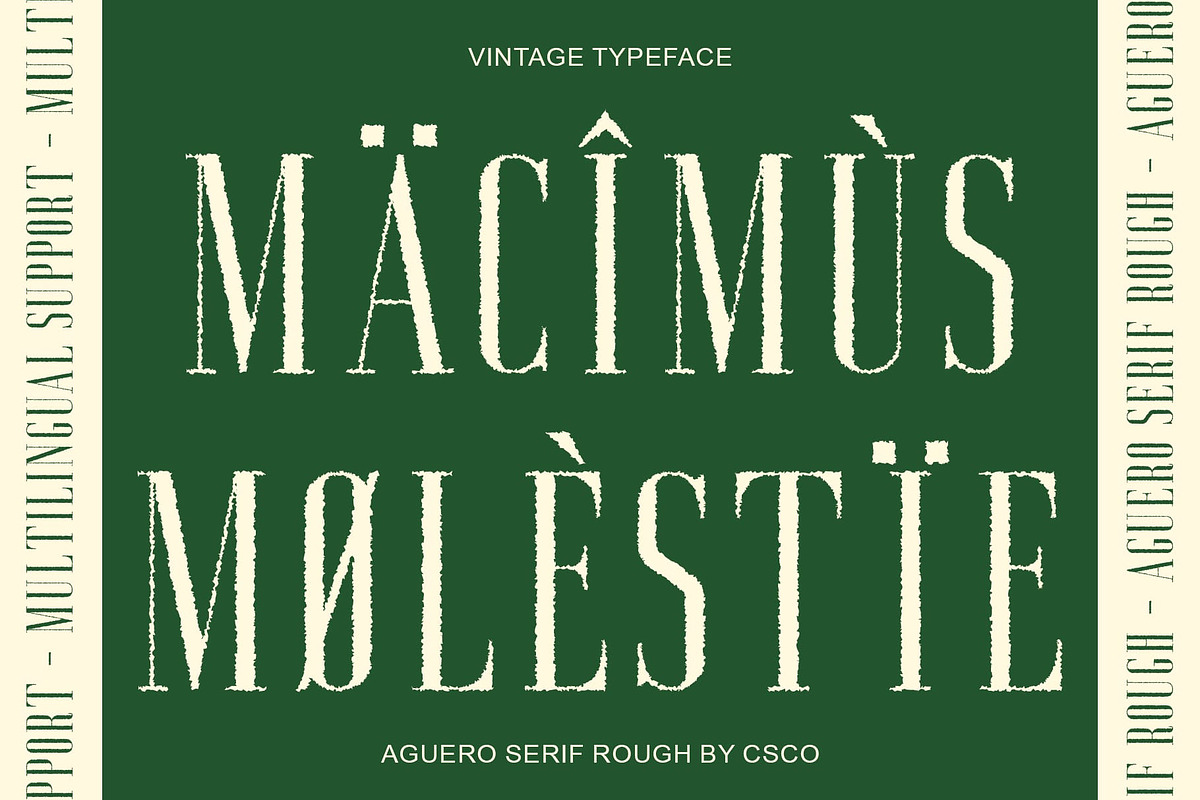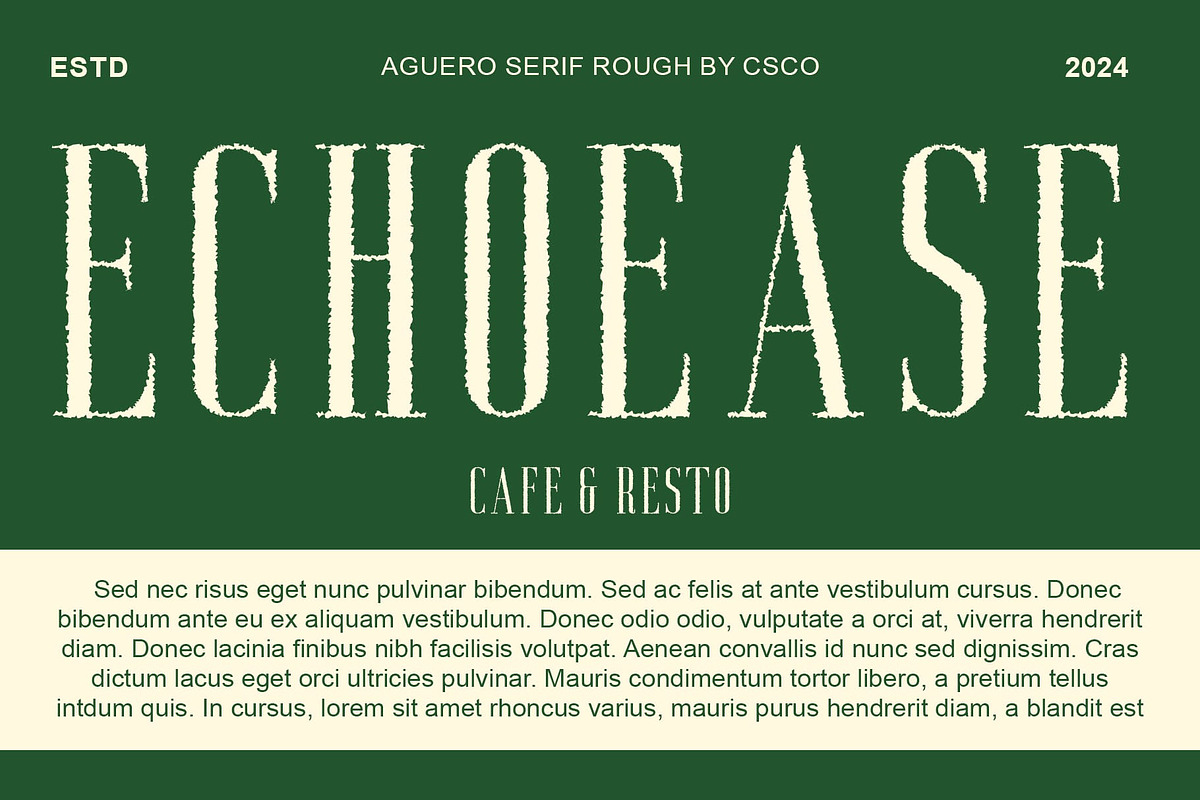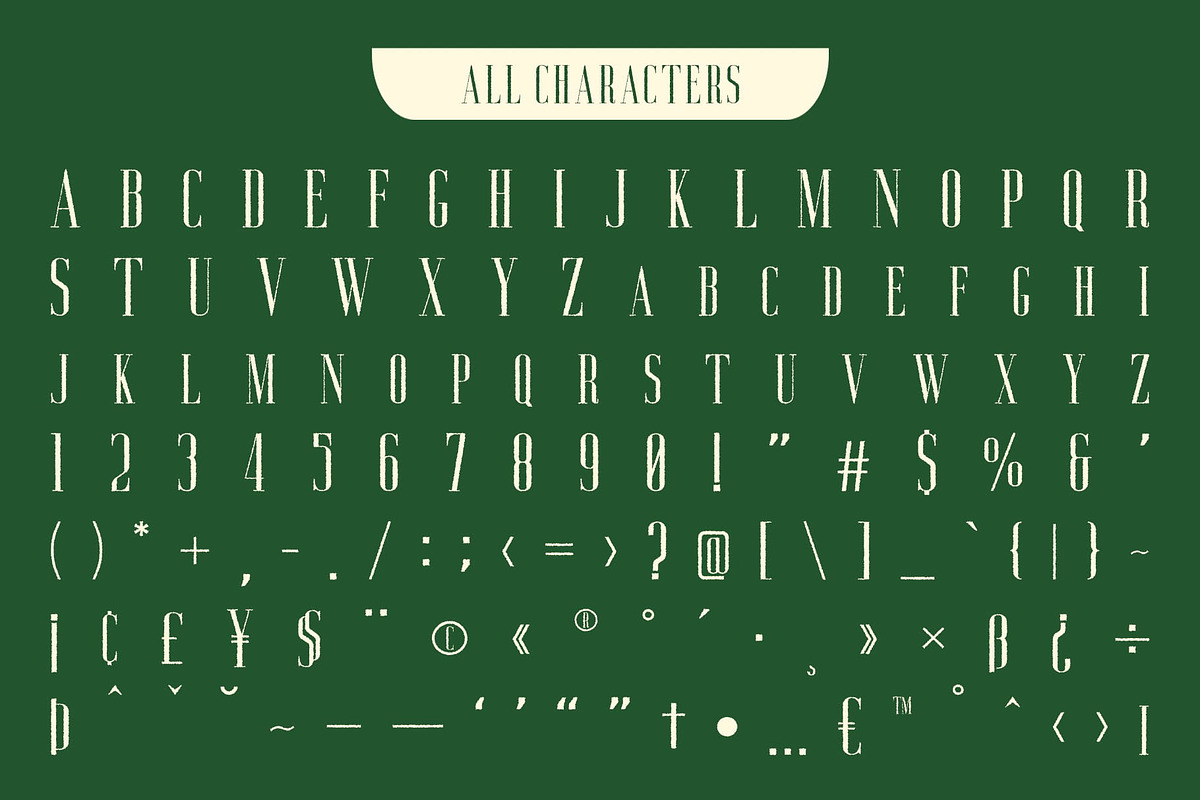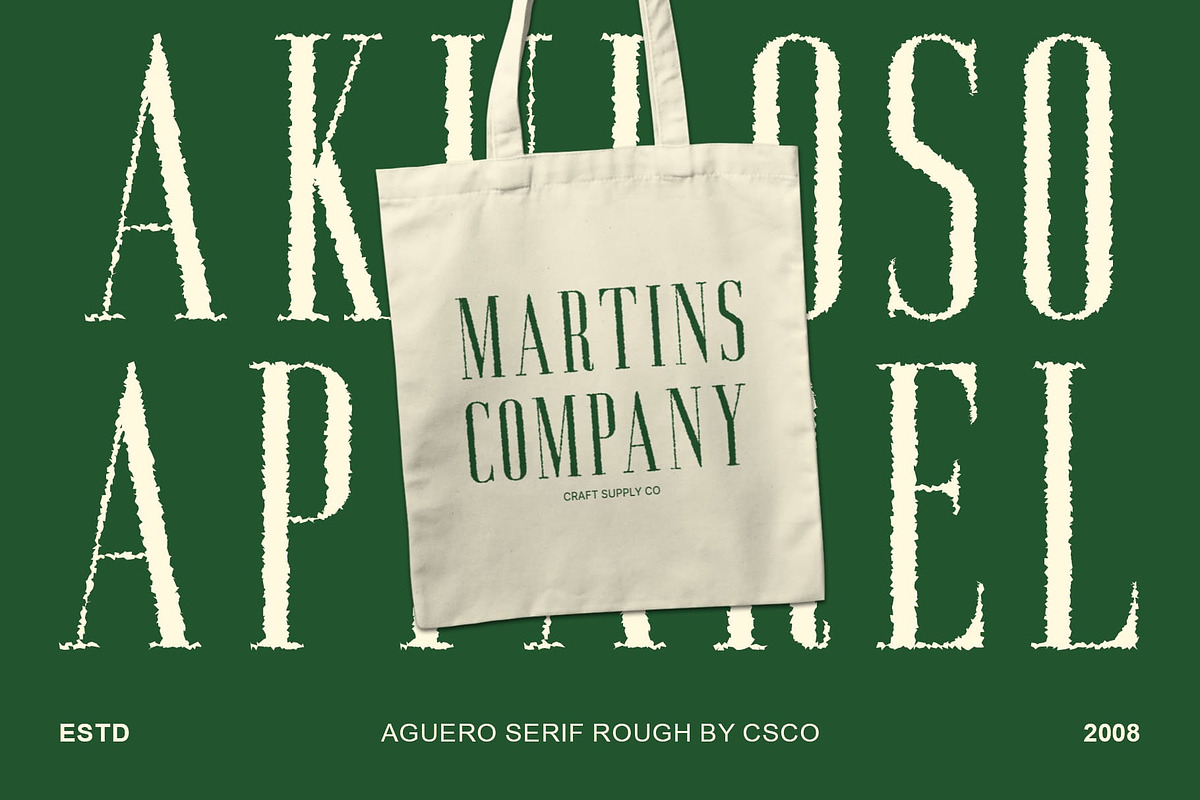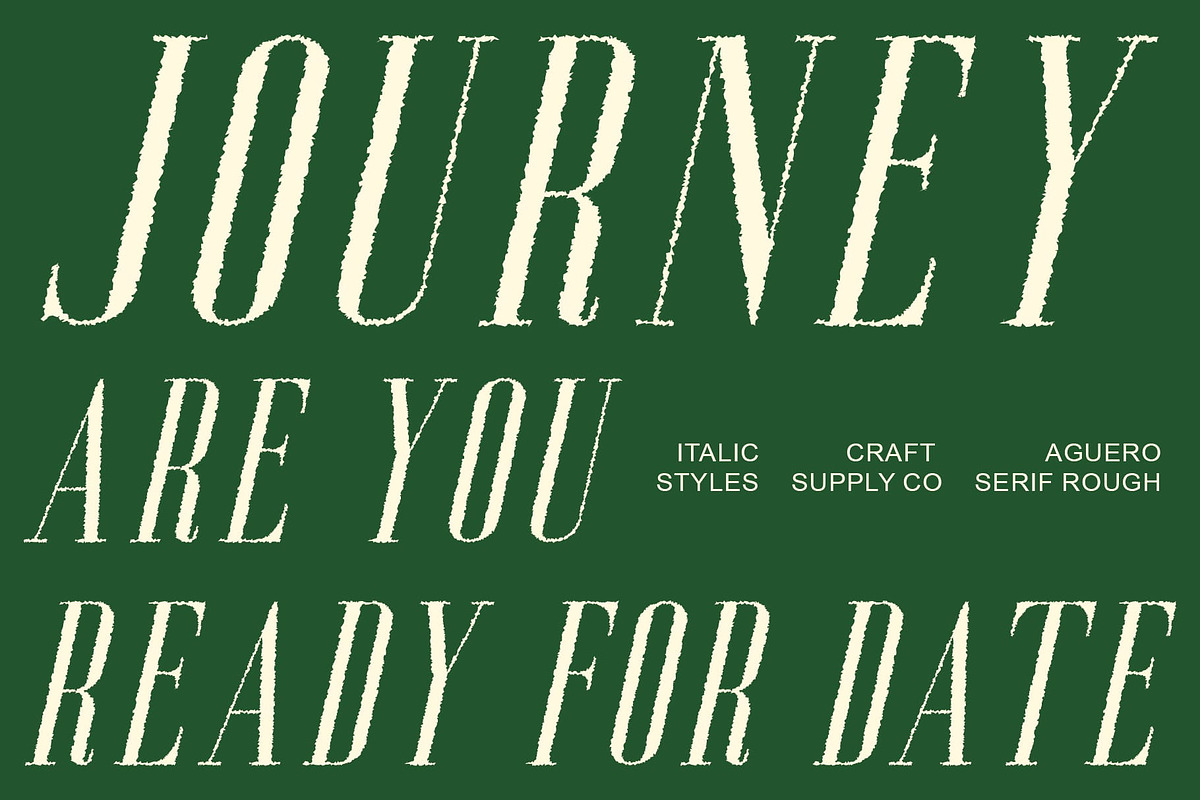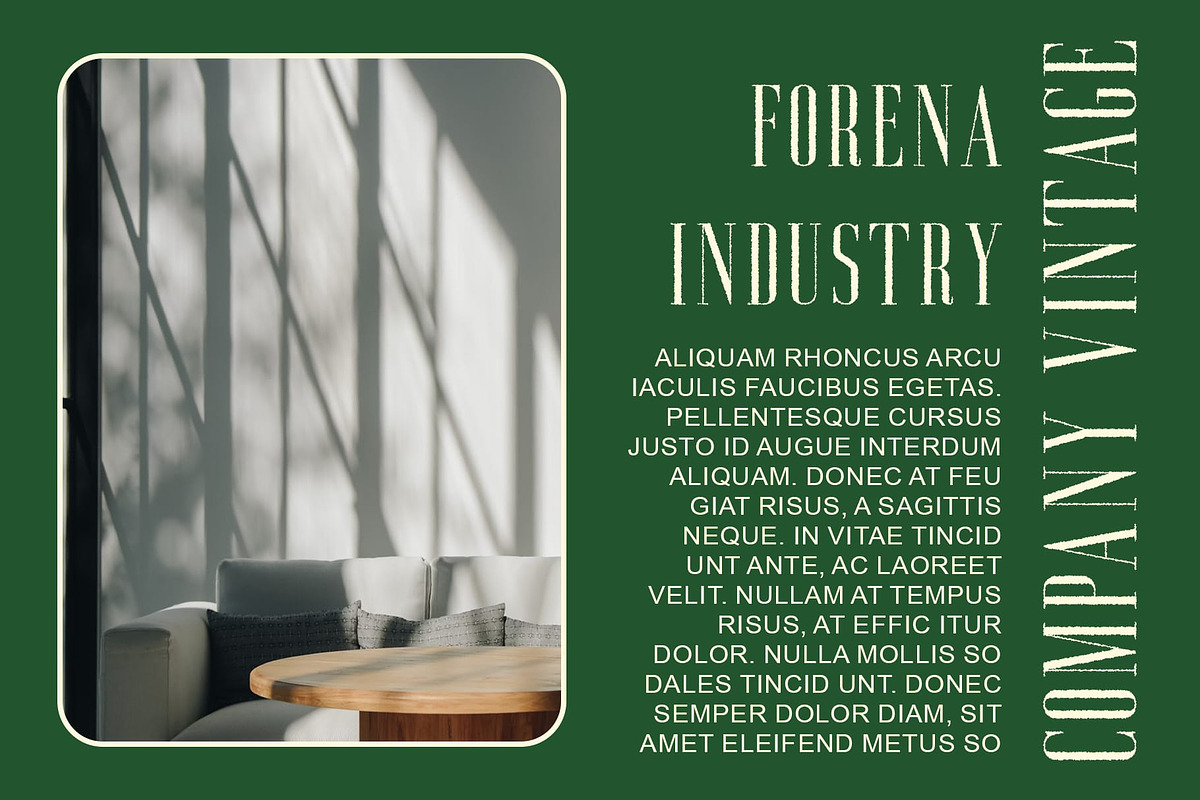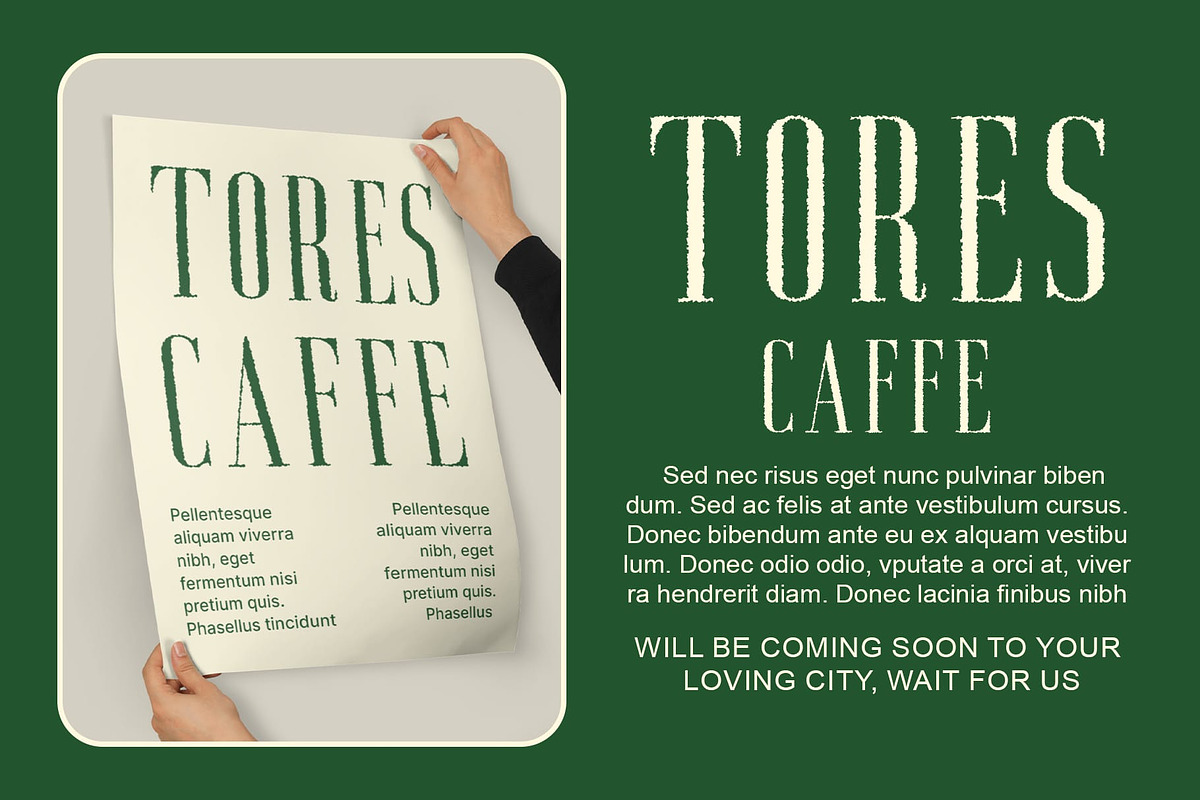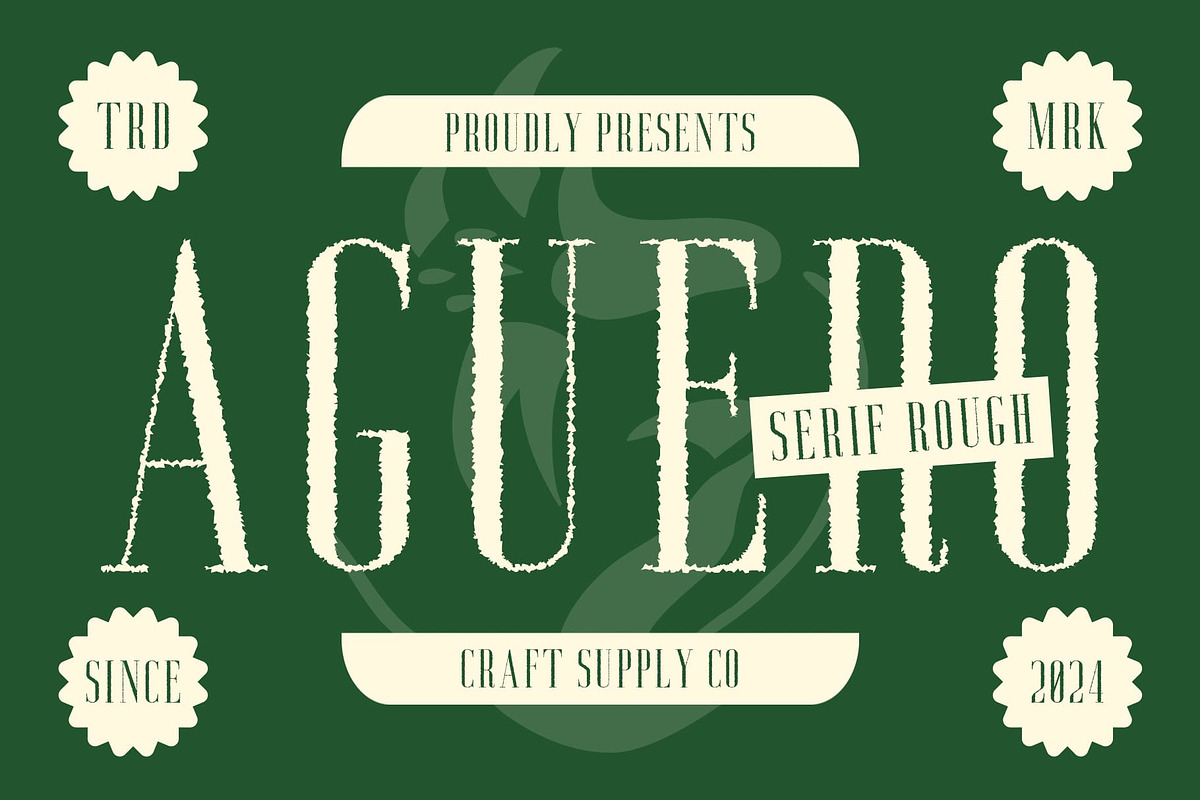
Aguero Serif Rough
Aguero Serif Rough: Vintage Elegance in High Contrast
Exuding Vintage Charm Aguero Serif Rough combines the timeless allure of vintage typography with modern design elements. Its high contrast and condensed form exude elegance reminiscent of classic serif fonts.
Distinctive Rough Texture The rough texture of This font adds character and depth to its design, evoking a nostalgic feel of aged print materials. Each letter carries a unique charm, enhancing its vintage appeal.
Perfect for Display Purposes Tailored for display use, This font excels in grabbing attention and making a bold statement. Its condensed form and high contrast make it ideal for headlines, banners, and branding materials.
Versatile Application Despite its vintage aesthetic, This font is versatile and adaptable to various design contexts. Whether used in print or digital media, it adds a touch of sophistication and nostalgia to any project.
Timeless Elegance with a Vintage Twist This font blends vintage charm with modern design sensibilities, offering a unique blend of elegance and nostalgia. Its high contrast, condensed form, and rough texture make it an ideal choice for designers seeking to evoke a timeless aesthetic in their projects.
- Aguero Serif Rough Regular
- Aguero Serif Rough Italic